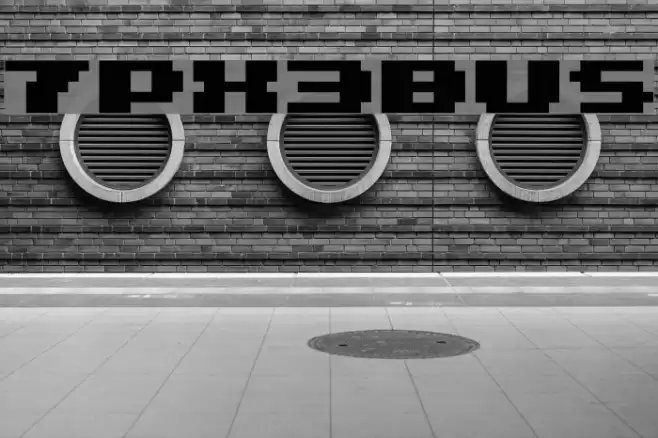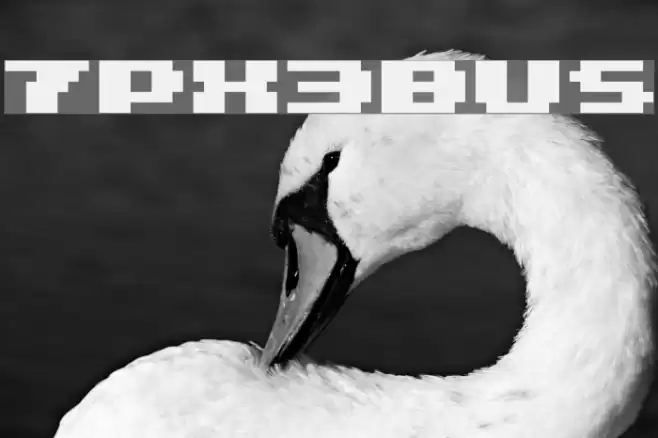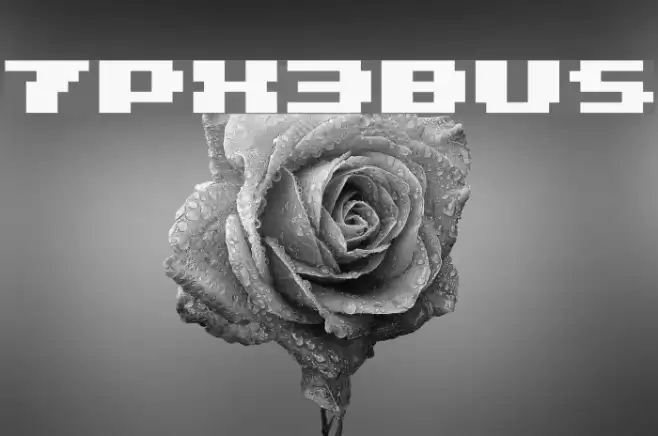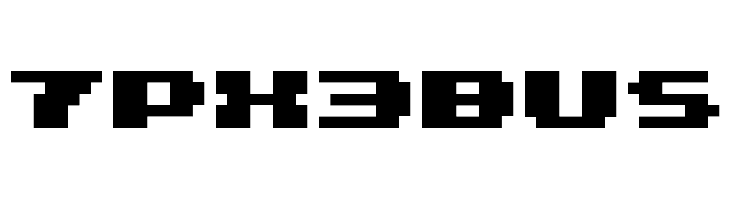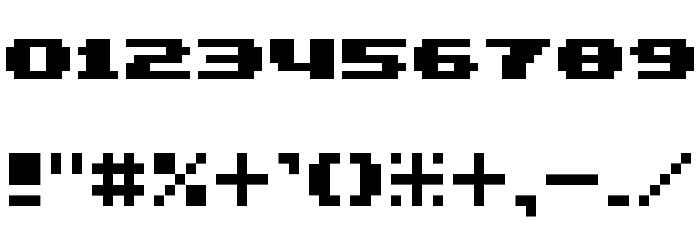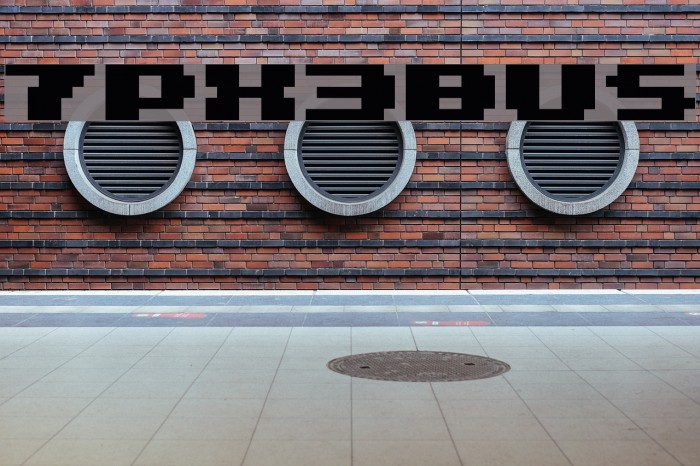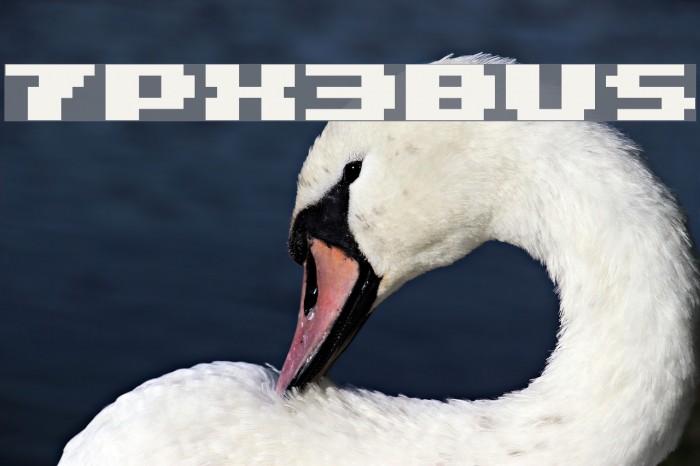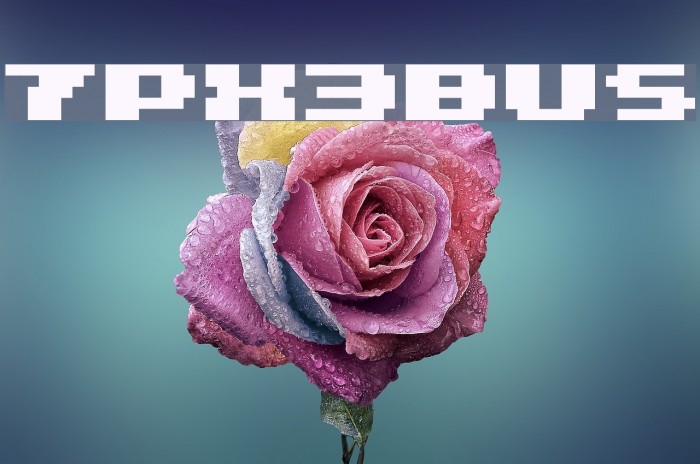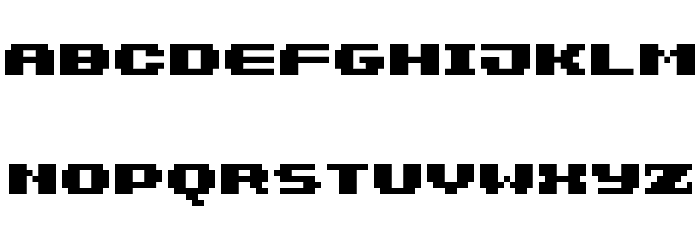
7px3bus Font
7px3bus Description
This font is a pixelated, block-style typeface that evokes a retro, digital aesthetic reminiscent of early computer graphics and video games. Each character is constructed with a uniform grid of pixels, giving it a distinctly angular and geometric appearance. The uppercase and lowercase letters share a similar height and width, contributing to a monospaced feel, although the font itself is not strictly monospaced. The numerals and special characters maintain the same pixelated style, ensuring consistency across all glyphs. This font's bold and chunky design makes it highly legible at small sizes, ideal for digital displays or any project seeking a nostalgic, tech-inspired look.
A pixelated, retro-style font with a bold, blocky appearance from Uncategorized fonts.
- Proposed Projects: Ideal for video game design, digital art projects, retro-themed websites, or any creative work that requires a nostalgic, tech-inspired aesthetic.
- Overall Style: Retro, Digital
- Use Case: Headlines, Logos, Digital displays